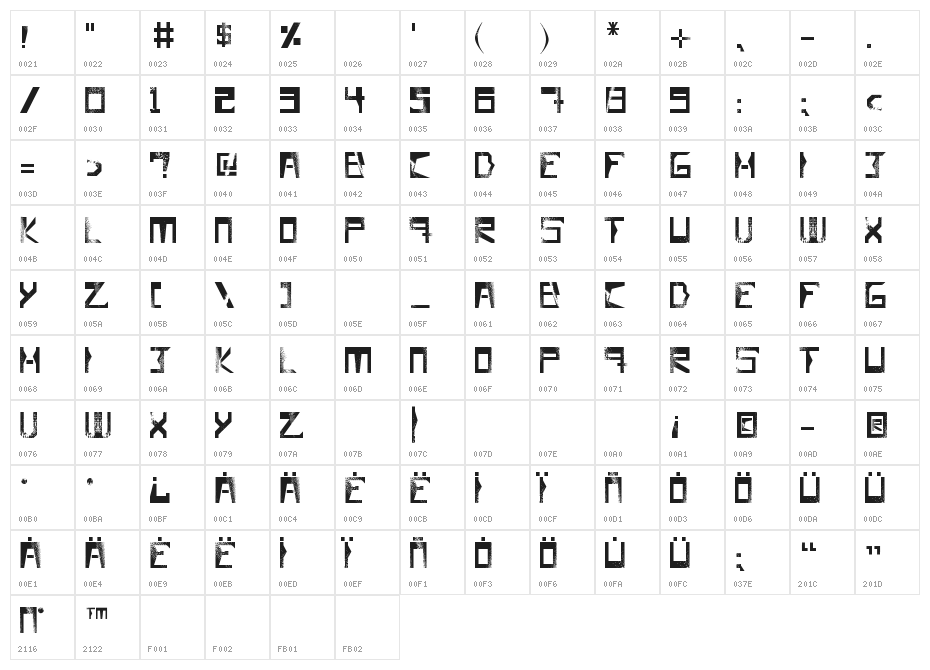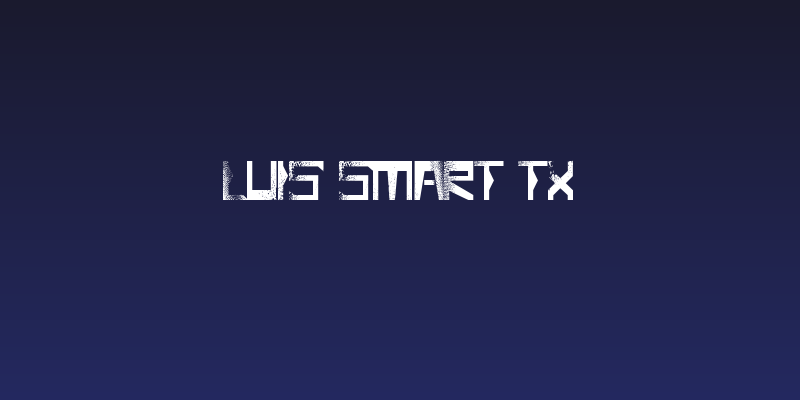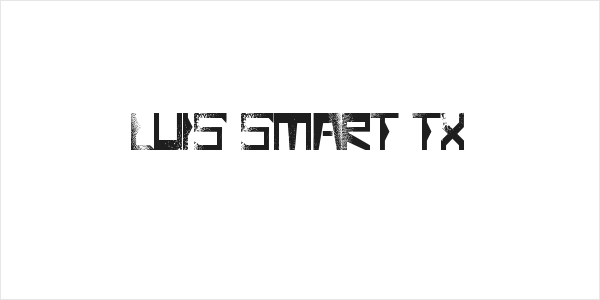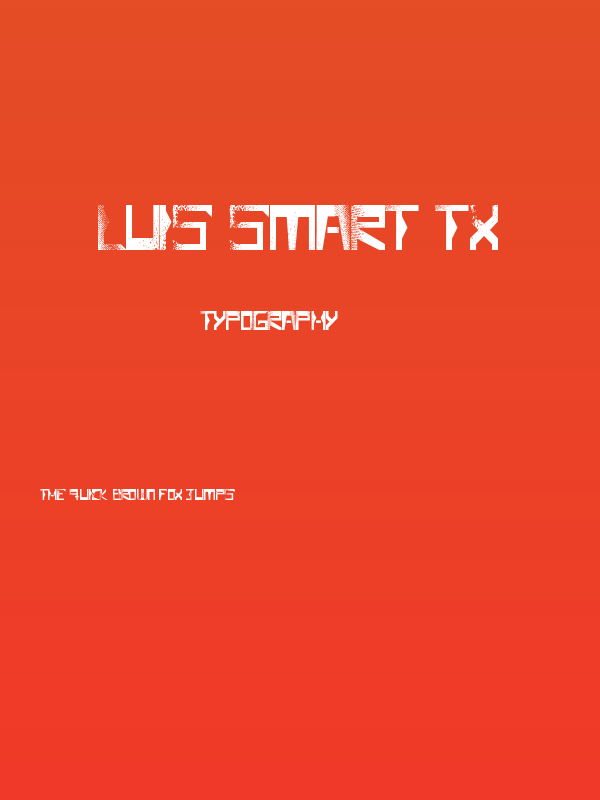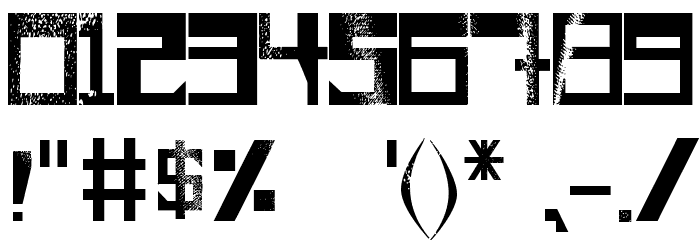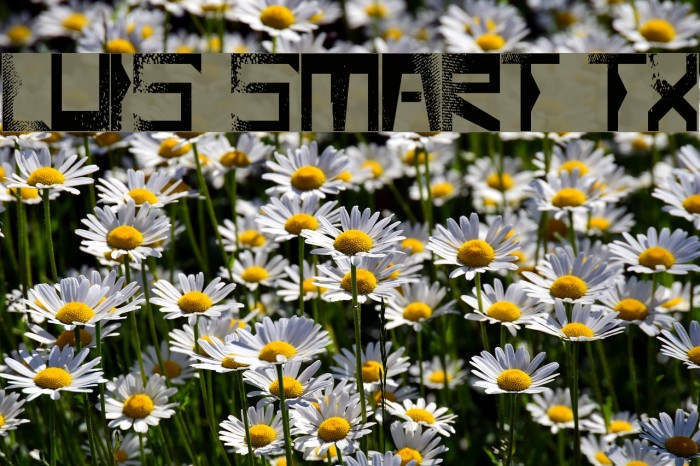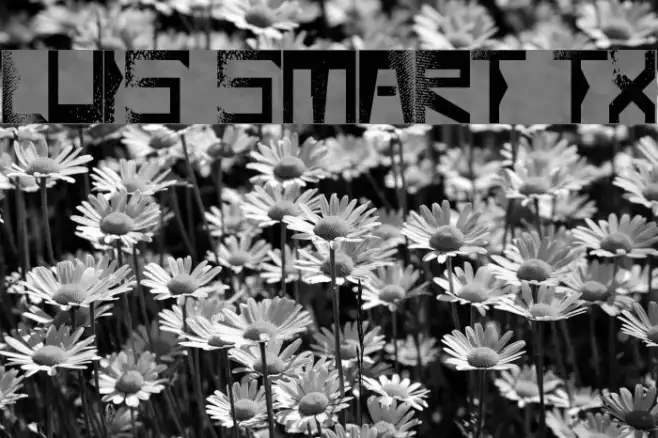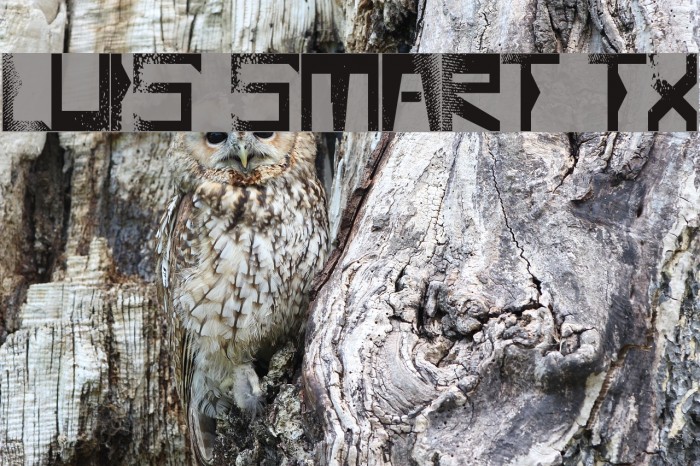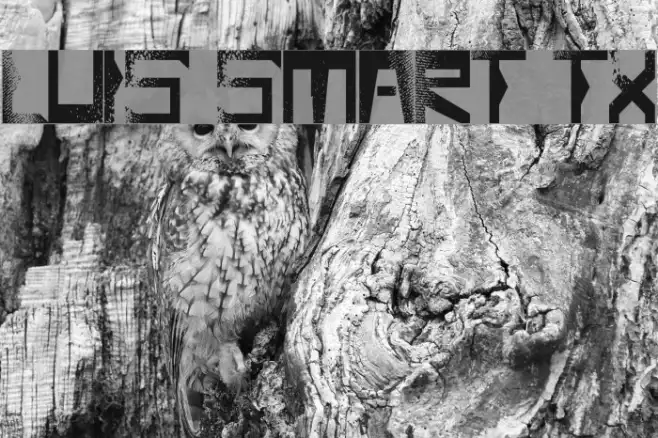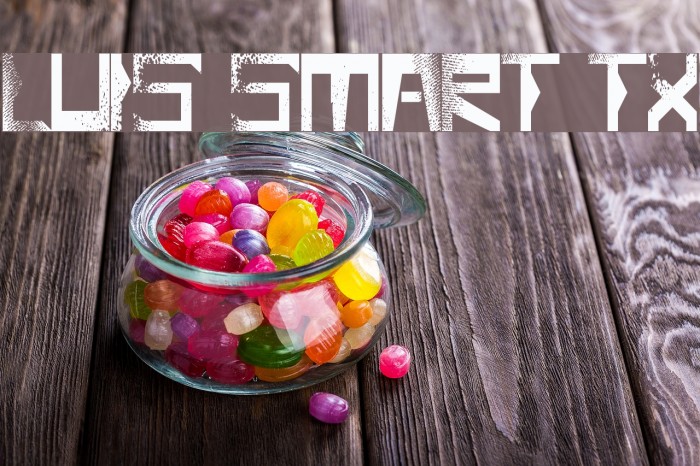
Luis Smart TX Font
Luis Smart TX Description
This font features a bold, geometric design with a distressed texture, giving it a rugged and edgy appearance. The characters are constructed with sharp angles and straight lines, creating a modern and industrial feel. The distressed effect adds a layer of complexity, making each letter appear unique and dynamic. This style is particularly eye-catching and would stand out in any design project. The uppercase and lowercase letters maintain a consistent style, while the numerals and special characters complement the overall aesthetic.
| Overall Style | Modern, Industrial |
| Proposed Projects | Ideal for urban-themed posters, album covers, video game graphics, and branding for edgy or modern products. |